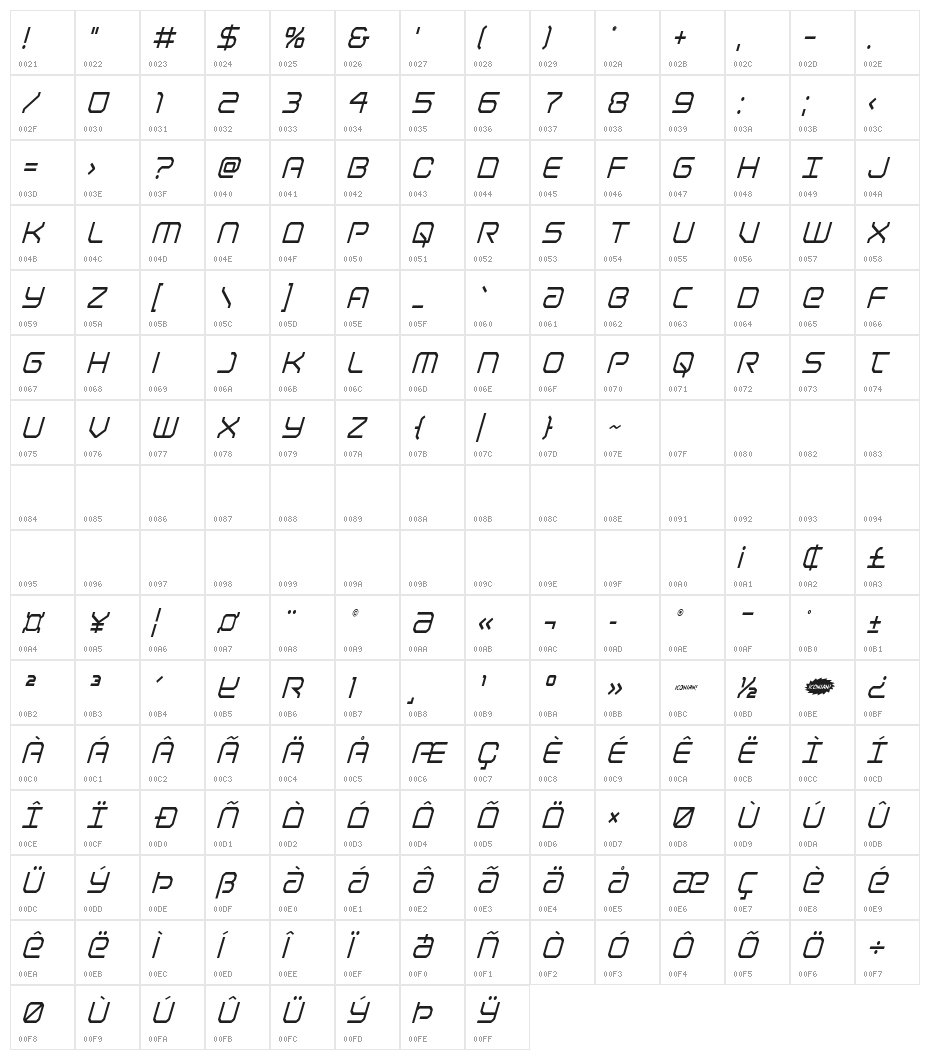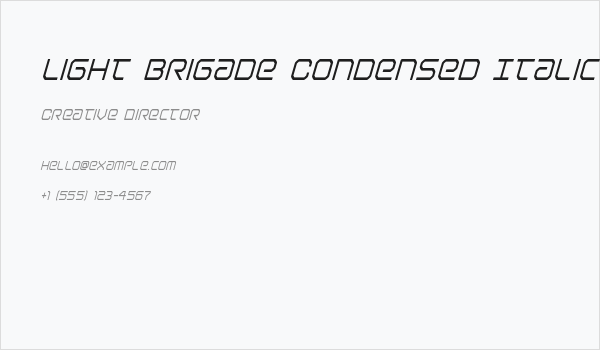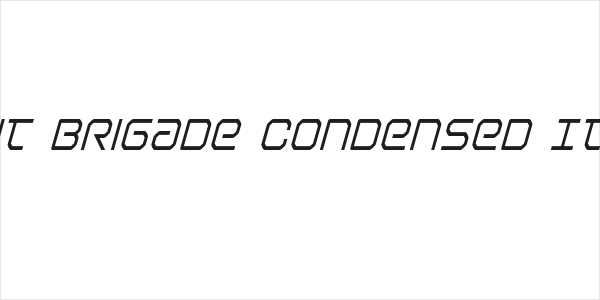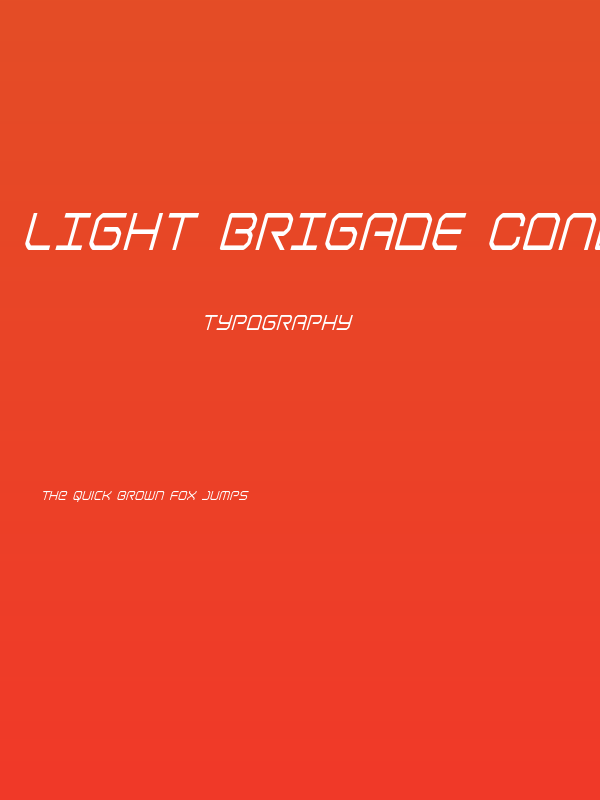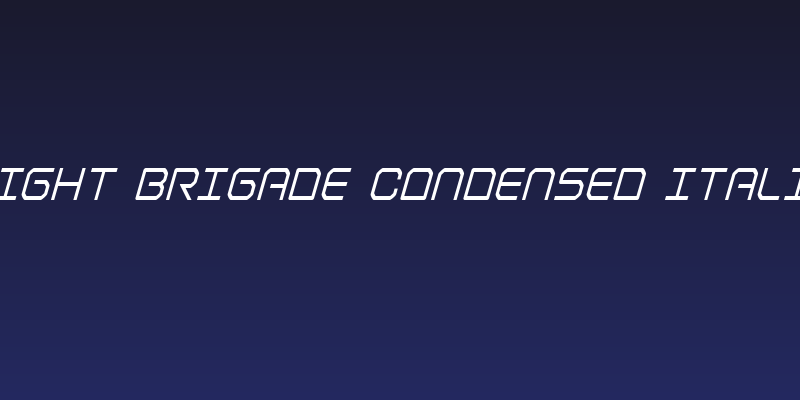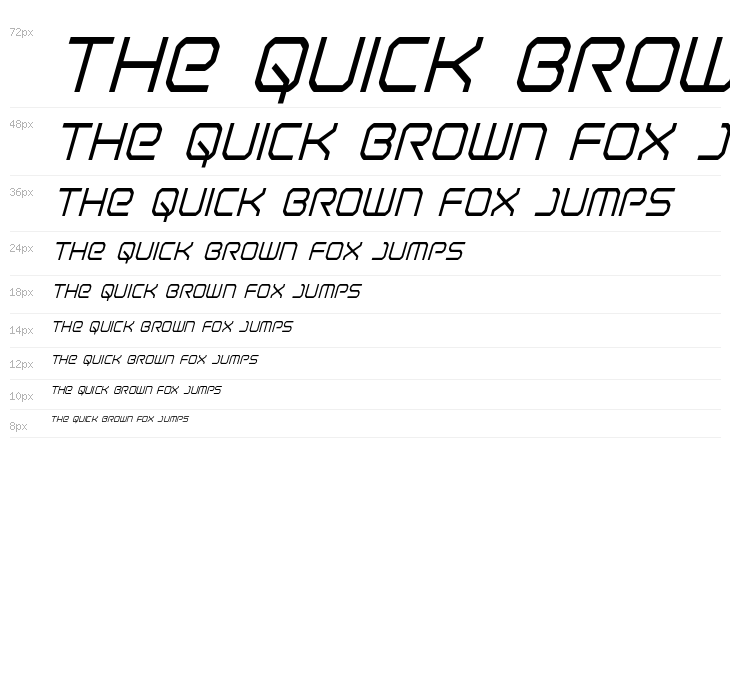
Light Brigade Condensed Italic Font
Light Brigade Condensed Italic Description
This font exhibits a modern and sleek design with a condensed and italicized style. The characters are angular with a futuristic feel, featuring sharp edges and a geometric structure. The uppercase and lowercase letters maintain a consistent slant, enhancing the italic appearance. The numerals are distinct and align well with the overall aesthetic, while the special characters complement the set with similar angularity. This font's condensed nature allows for efficient use of space without sacrificing readability.
| Proposed Projects | Ideal for technology branding, sci-fi themed projects, modern posters, and innovative product packaging. |